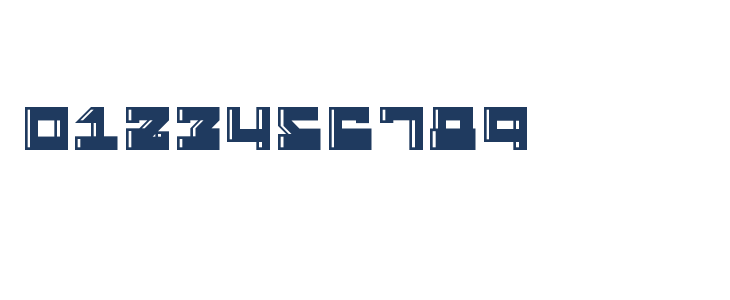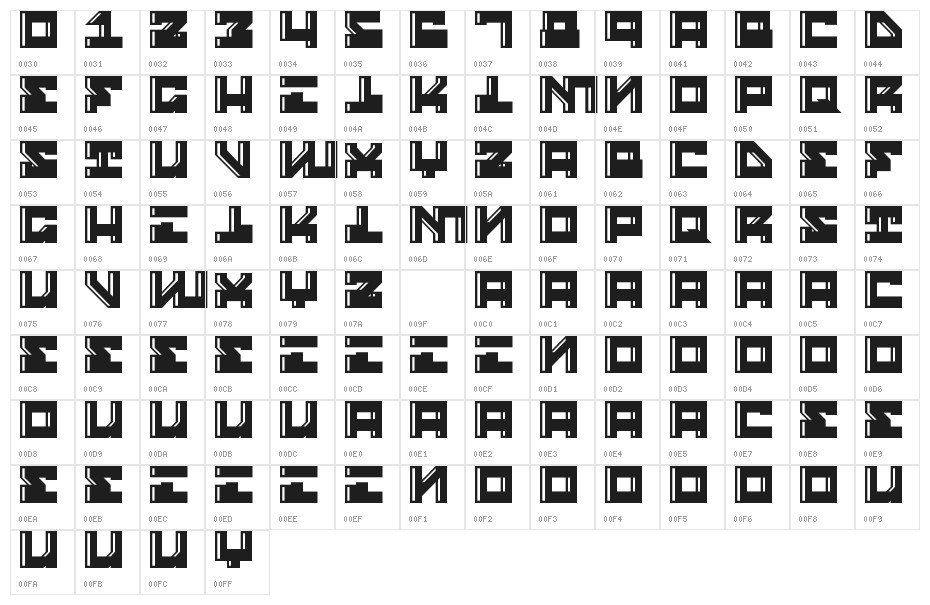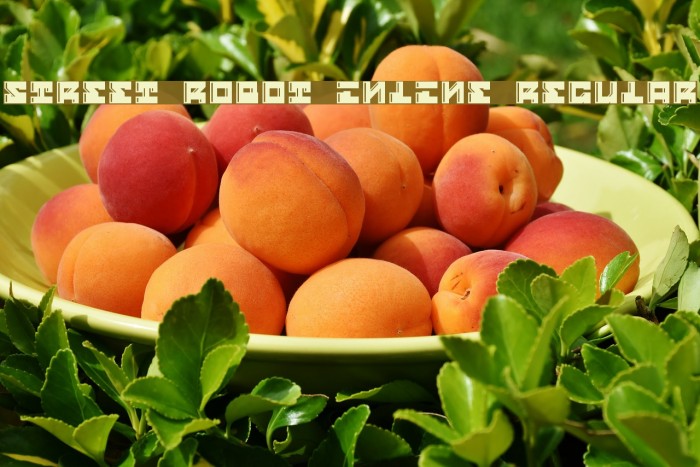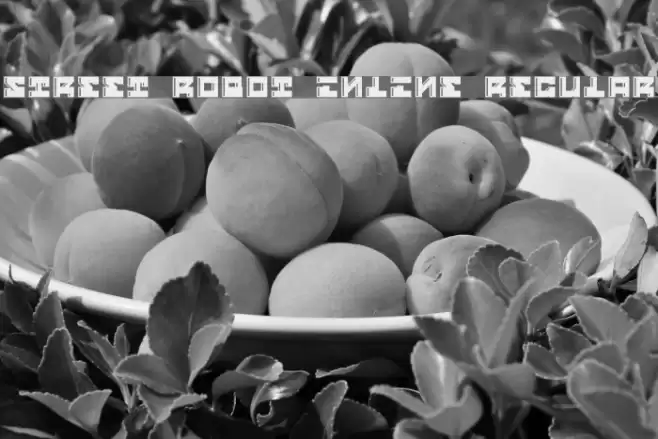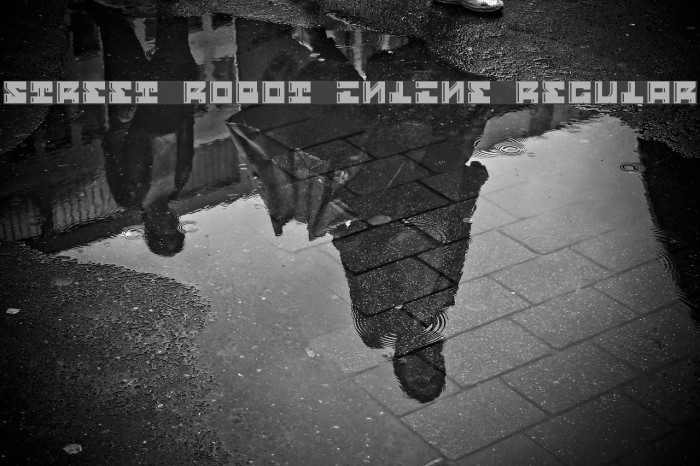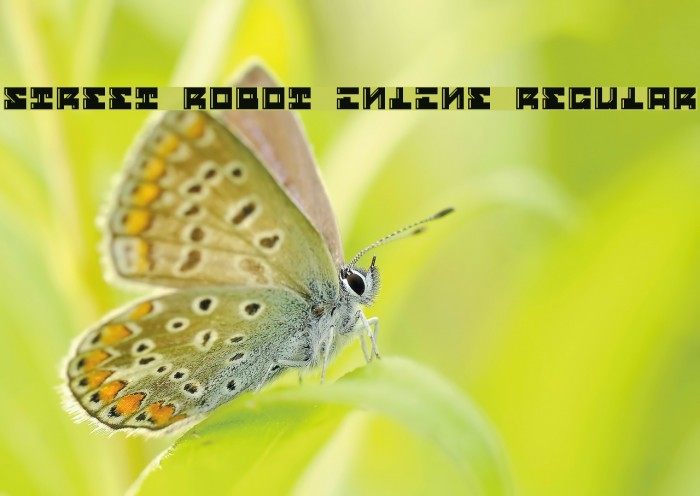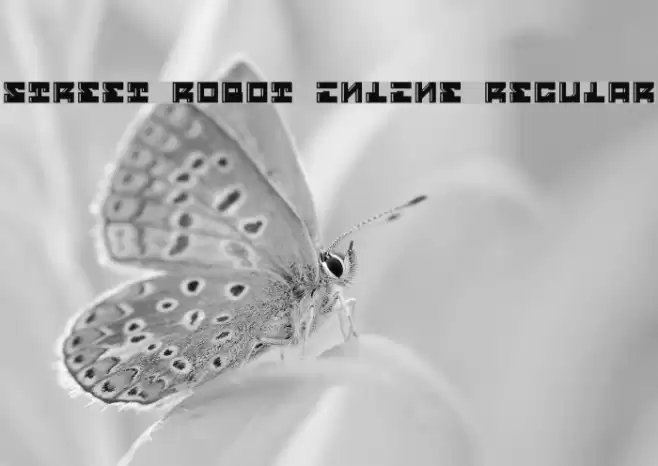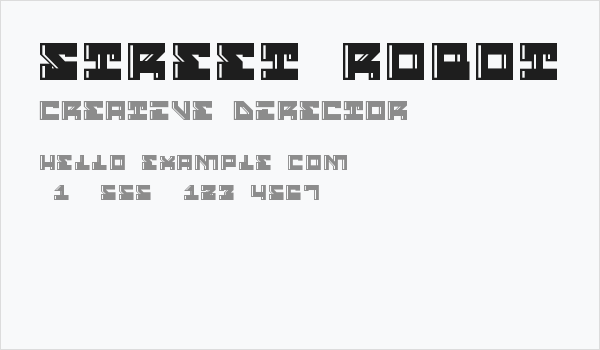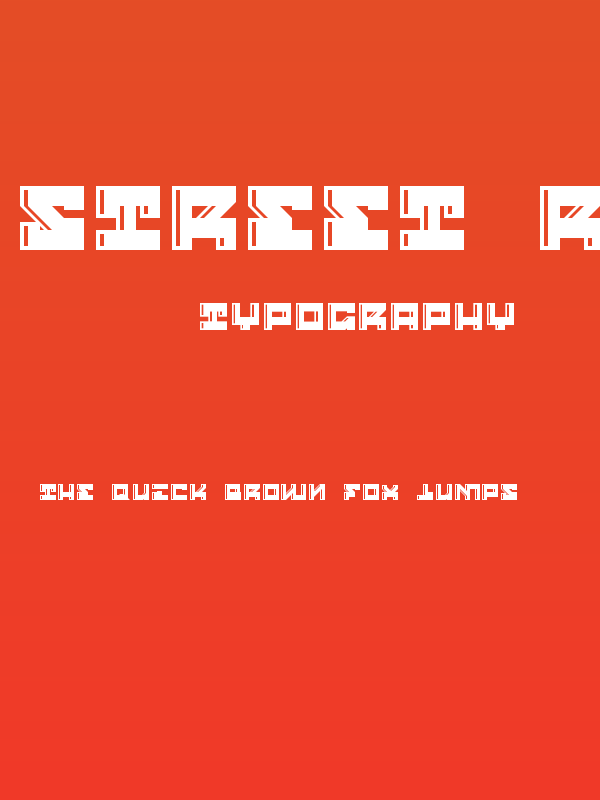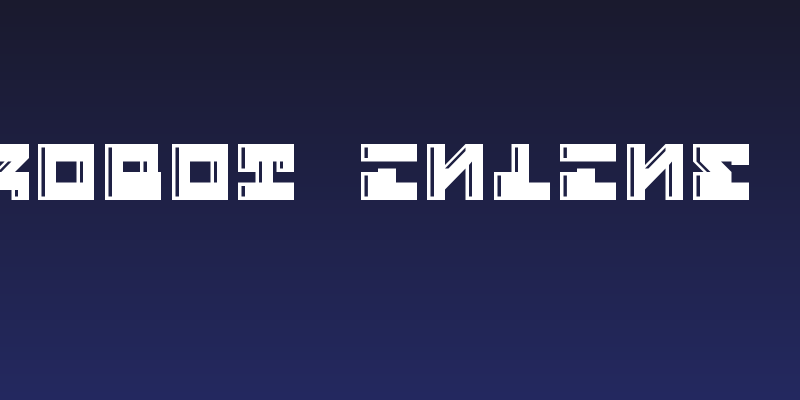
Street Robot Inline Regular Font
Street Robot Inline Regular Description
This font features a futuristic and mechanical design, characterized by bold, geometric shapes and inline detailing. The characters are constructed with a combination of solid and cut-out sections, creating a dynamic and industrial appearance. The uppercase and lowercase letters maintain a consistent style, with angular lines and sharp edges that suggest a robotic or technological theme. The numerals and special characters follow the same design principles, ensuring uniformity across the typeface. The overall look is striking and modern, suitable for projects that require a bold and unconventional typeface.